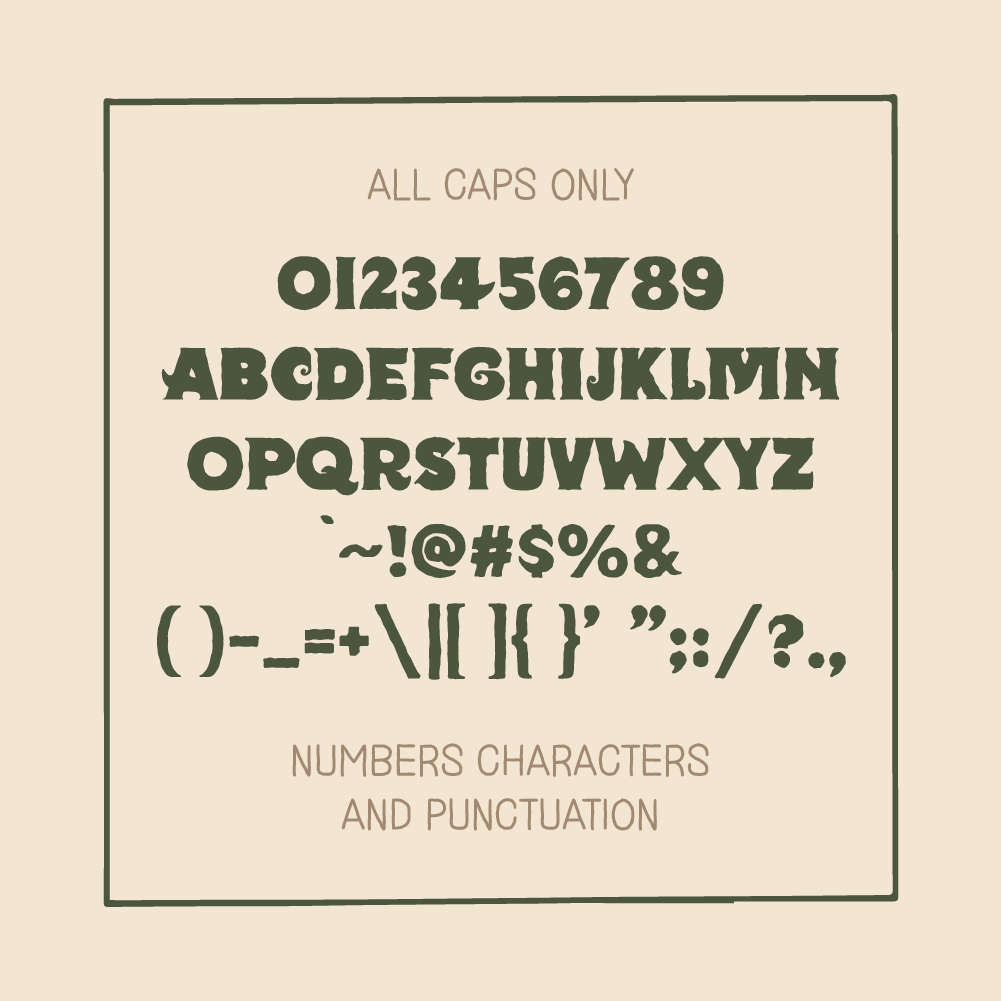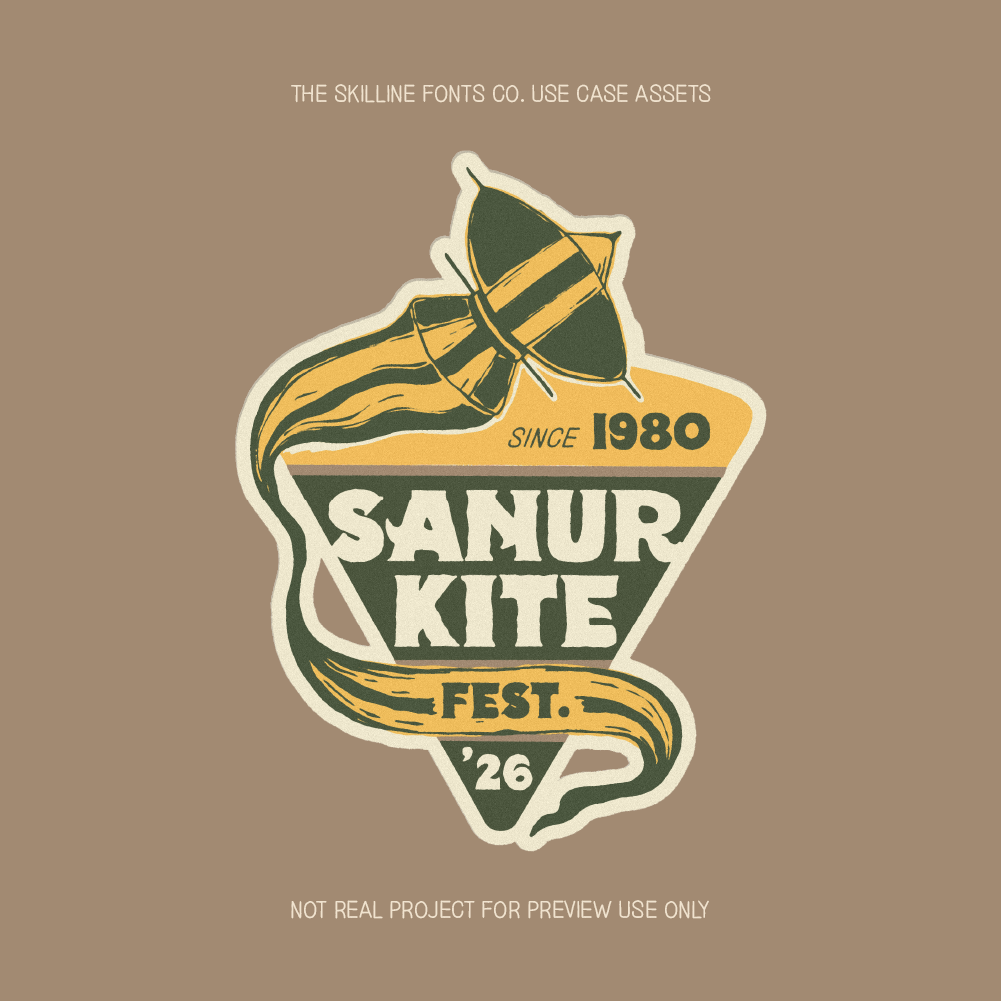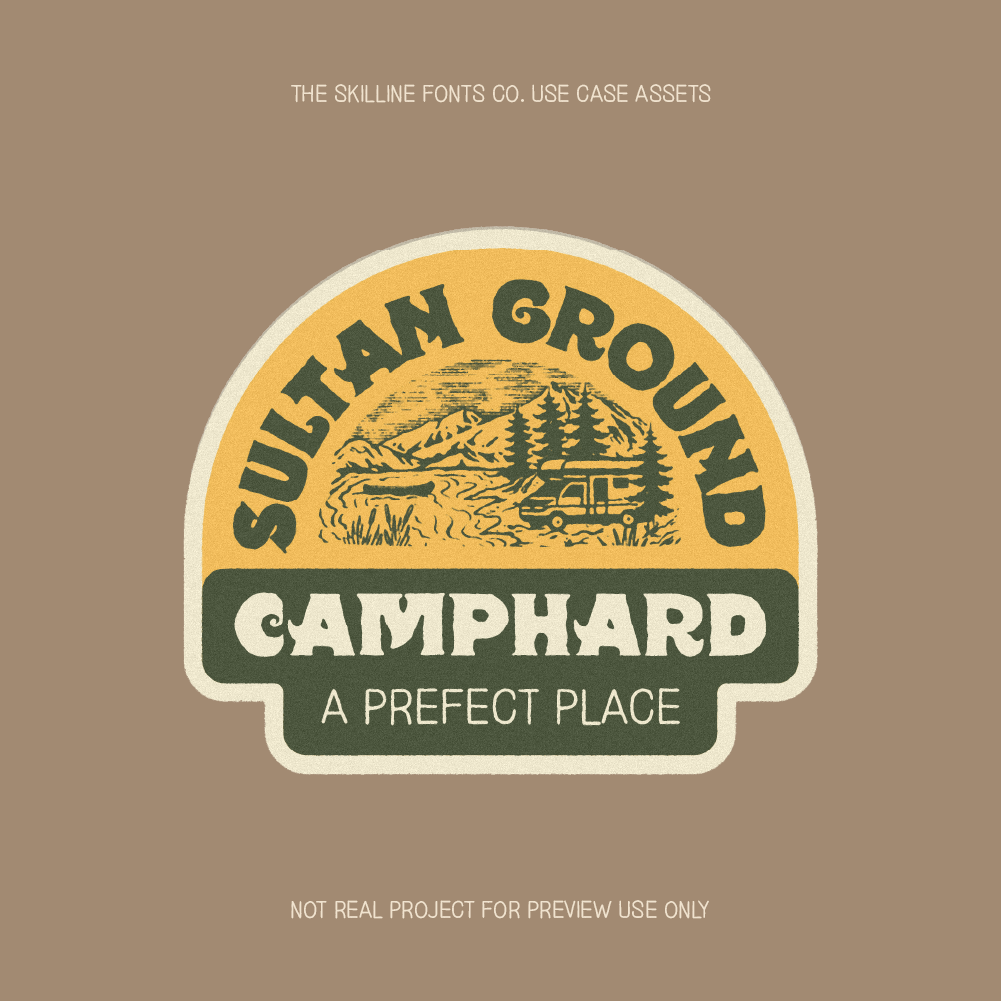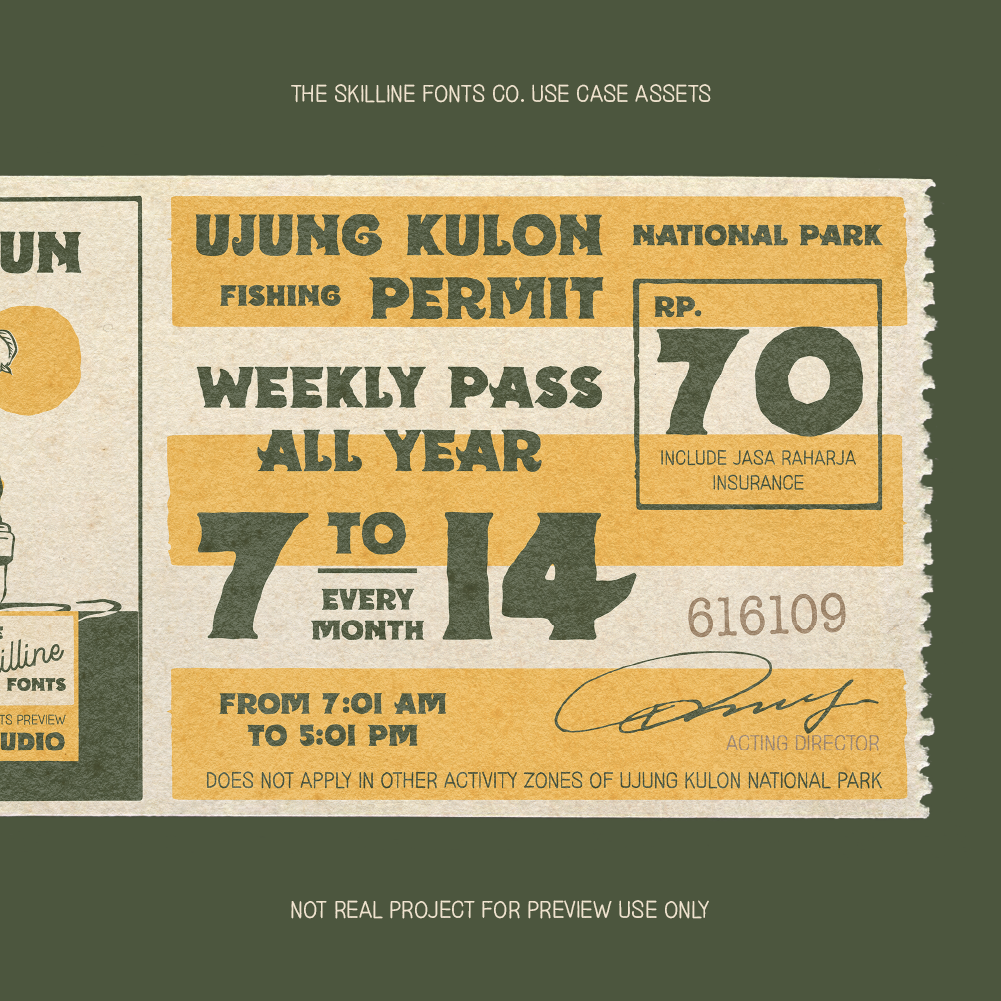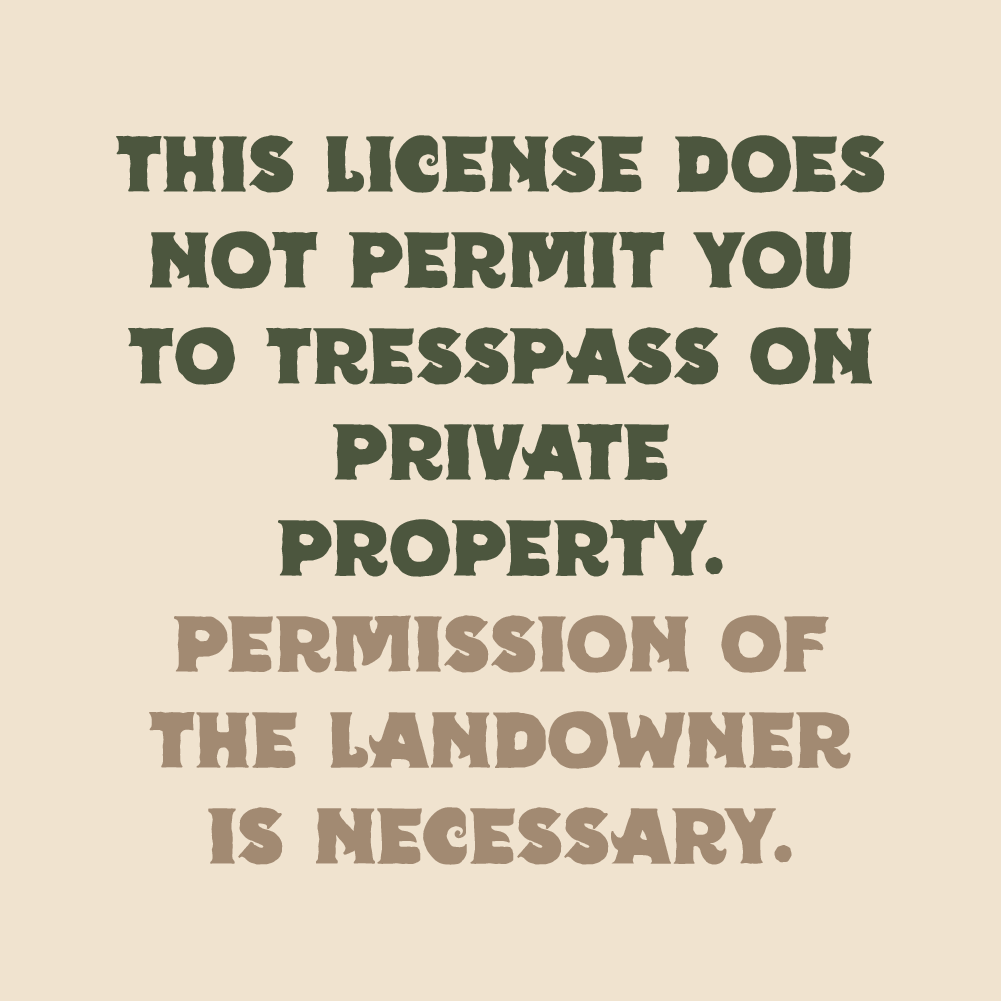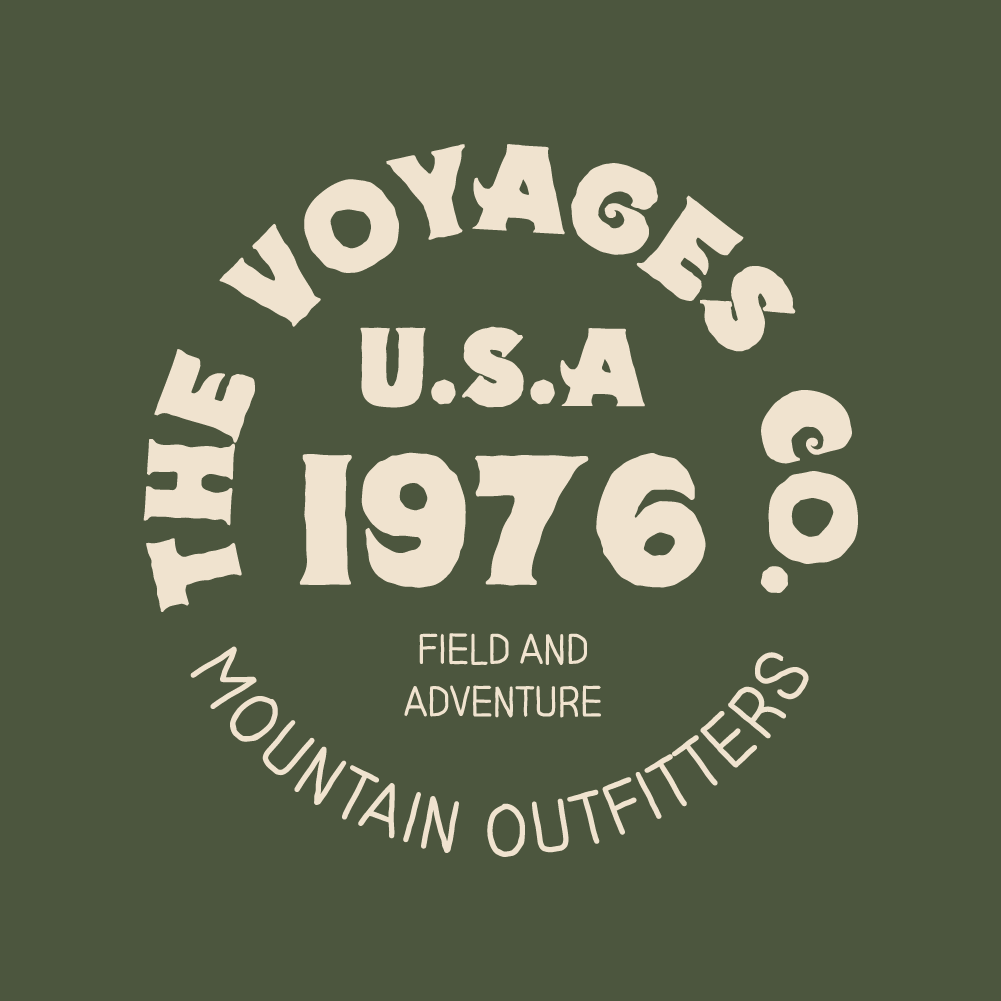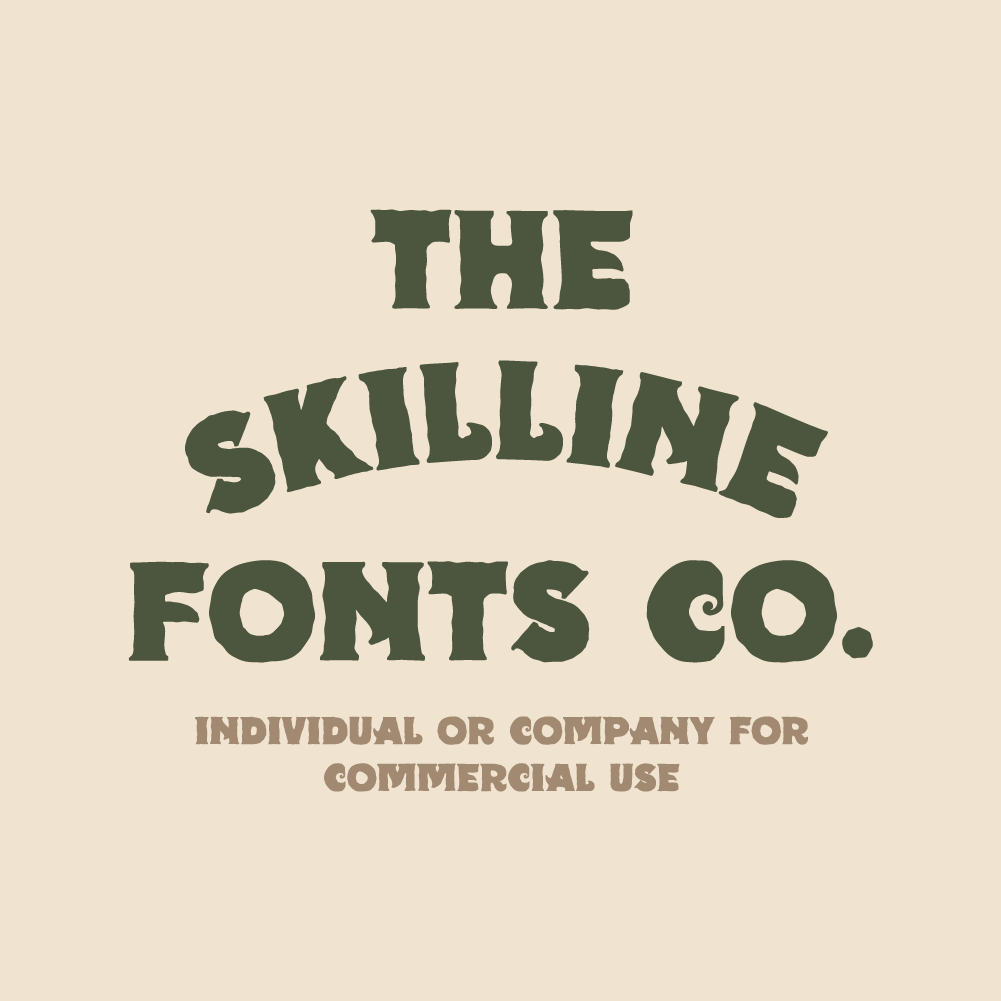
SFC Camphard
Camphard is a bold vintage display typeface inspired by classic camping gear, trail signage, and the spirit of outdoor adventure. Featuring hand-rendered edges and rugged letterforms, it captures mid-century warmth and nostalgia while remaining fresh and highly legible for modern use.
Designed to balance strength and friendliness, Camphard delivers an authentic handcrafted feel that shines in bold, adventurous designs.
Ideal Applications for SFC Camphard Typeface
• Outdoor branding & vintage-style logos
• Apparel & adventure-inspired merchandise
• Packaging for coffee, gear & handcrafted goods
• Posters, signage & editorial headlines
• Retro-vintage digital graphics & social media visuals
• All Caps Typeface
• Handcrafted Display Letterforms
• Bold Vintage Character
• Basic Numerals & Punctuation